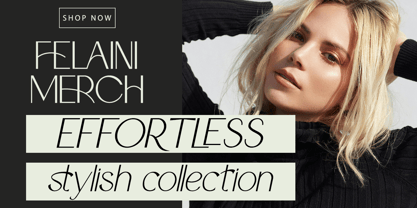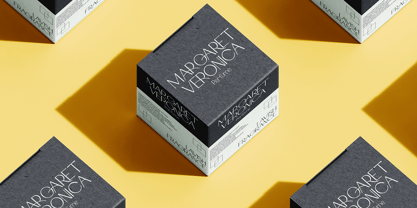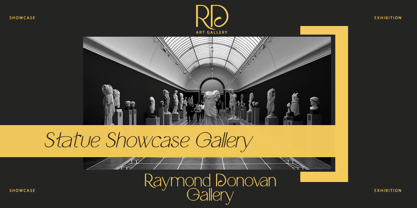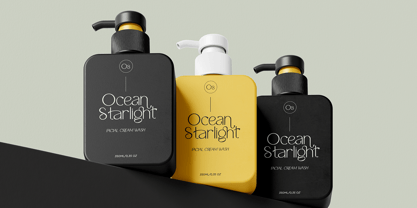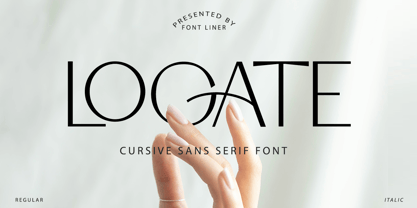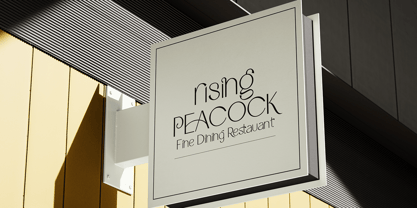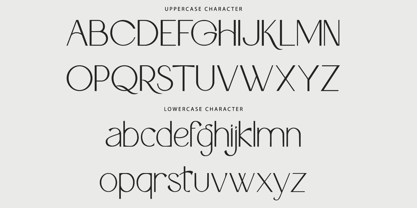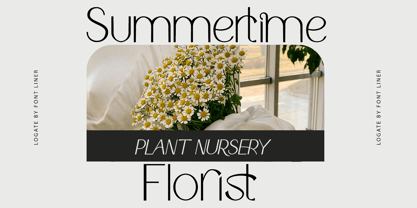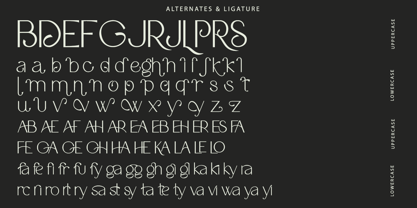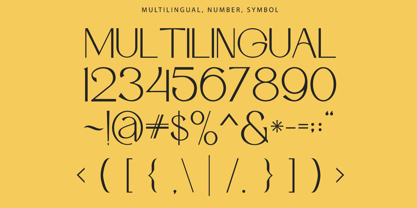
Logate
The Logate Font Family was designed by Ghina Luthfiarieska and published by Font Liner. Logate contains 2 styles and family package options. More about this family
Logate is Chic Ligature Sans Serif a font that exudes elegance and sophistication with its captivating design and exquisite ligatures. Perfect for enhancing your design elements, this font offers a modern yet timeless aesthetic, making it an ideal choice for a variety of design projects. Logate perfect for logos, titles, book covers, web design, or posters, this versatile font provides endless creative possibilities, allowing you to create captivating and professional-looking designs effortlessly. File Included : - Logate Regular - Logate Italic - Stylish Ligatures - Multilingual Support Thanks, Have a wonderful day Font Liner